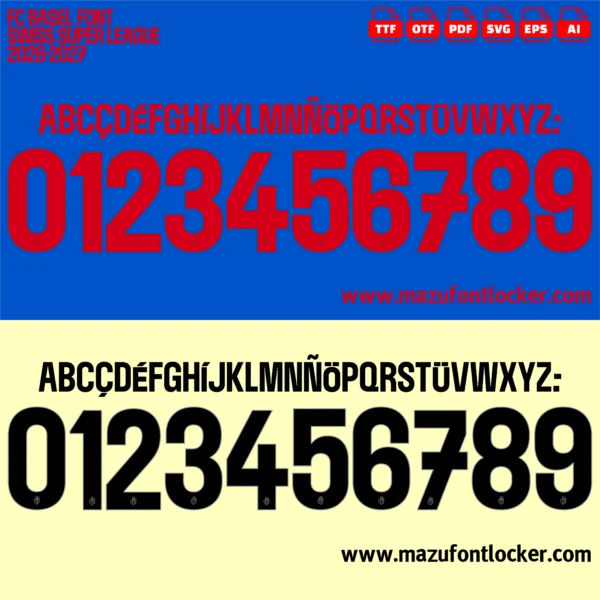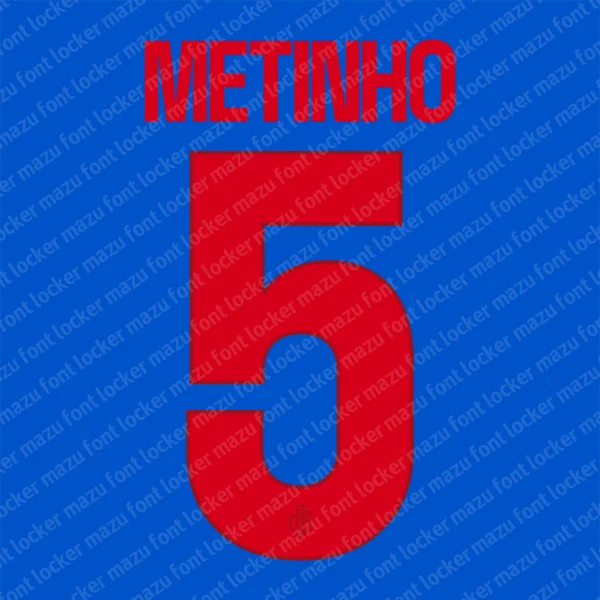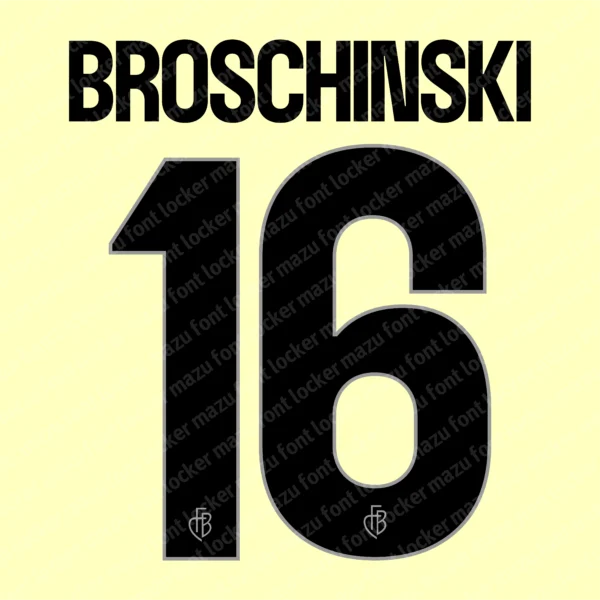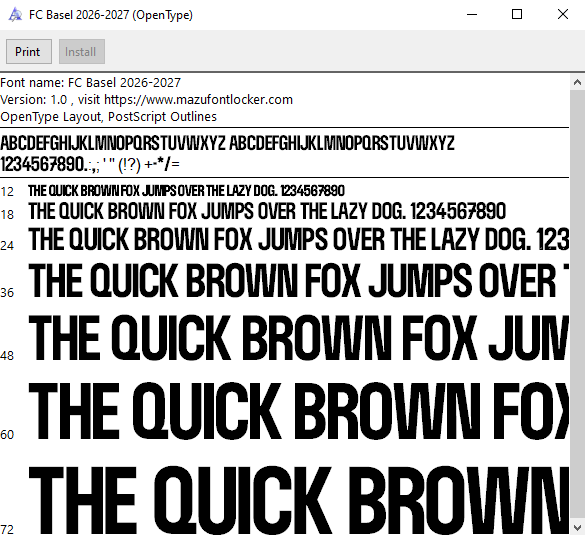
FC Basel 2026-2027 Font Vector – Epic Rotblau Masterpiece
This font captures the commanding, crimson-edged, lightning-strike, and precision-engineered lettering that perfectly embodies FC Basel’s iconic club identity, proud Basel heritage, legendary red-and-blue tradition, iron-willed spirit, and unstoppable Swiss football power — delivering unmatched authenticity, premium quality, explosive energy, and elite Swiss Super League & UEFA competition intensity for professional jersey mockups, dynamic football graphics, premium sports branding, passionate fan creations, and high-end design projects.
FC Basel 2026-2027 Font Vector – Stunning RotBlau Red & Blue Typeface
The FC Basel 2026-2027 Font Vector is a premium typeface that accurately recreates the distinctive match lettering associated with FC Basel during the 2026-2027 football season. This high-quality vector font kit captures the bold, clean, and instantly recognizable typography that perfectly complements the club’s iconic red and blue identity.
Designed for professional designers, football enthusiasts, jersey collectors, and passionate FC Basel supporters, the FC Basel 2026-2027 Font Vector delivers exceptional authenticity for creating realistic jersey mockups, football merchandise, social media graphics, match posters, squad designs, and custom fan artwork. Every character has been carefully recreated to reflect the powerful and precise visual style of one of Switzerland’s most historic and successful football clubs.
This font stands out thanks to its precise vector construction and authentic club-inspired styling. Every letter and numeral has been meticulously recreated to match the distinctive football lettering aesthetic associated with FC Basel during the 2026-2027 season and its domestic and European campaigns.
Whether you’re producing professional football kit templates, custom jersey concepts, or eye-catching football content, the FC Basel 2026-2027 Font Vector delivers a genuine match-ready appearance inspired by the identity of the RotBlau.
The lettering featured in the FC Basel 2026-2027 Font Vector combines clean geometric lines with bold modern proportions. The result is a premium and highly readable typeface that reflects FC Basel’s proud football heritage, iconic red and blue colors, Swiss identity, and passionate global fanbase.
The FC Basel 2026-2027 Font Vector is inspired by the distinctive football typography and visual identity associated with this campaign, making it an excellent choice for designers creating custom jersey concepts, football posters, squad graphics, matchday artwork, and fan-made projects. For official club information, news, team updates, fixtures, and match information, visit the official FC Basel website.
The FC Basel 2026-2027 Font Vector is an independently designed typeface package inspired by the official shirt lettering and visual identity associated with FC Basel during the 2026-2027 football season. It has been carefully recreated for football enthusiasts, graphic designers, collectors, jersey creators, and fans producing custom football concepts, digital artwork, and fan-made projects.